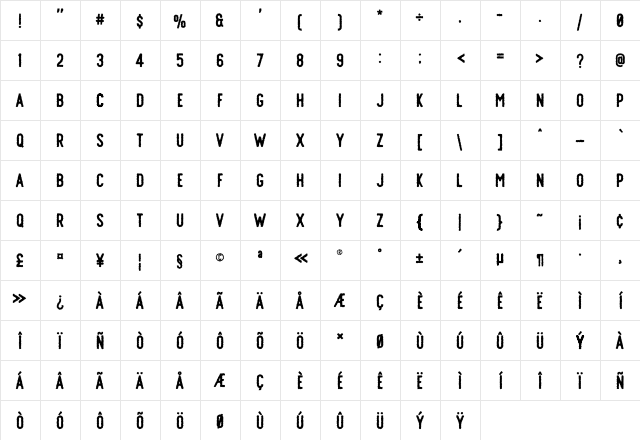
Offlander Rough Regular
Design Context for Offlander Rough Typeface
Offlander Rough embraces imperfection — its rough, textured character adds raw authenticity to designs that want to feel lived-in and unconventional.
A strong fit for alternative music projects, graffiti-adjacent design, and anything that deliberately resists polish.
Pro Tip: Use Offlander Rough at larger sizes where the texture and irregularity of each letterform can be clearly seen — it loses its character at small sizes.